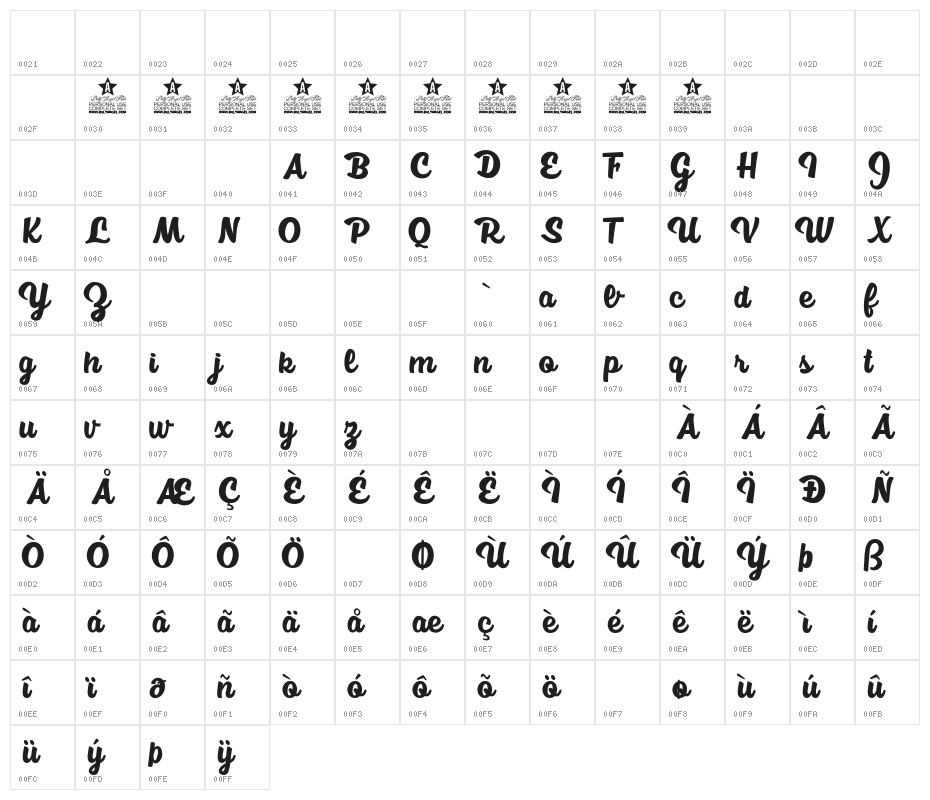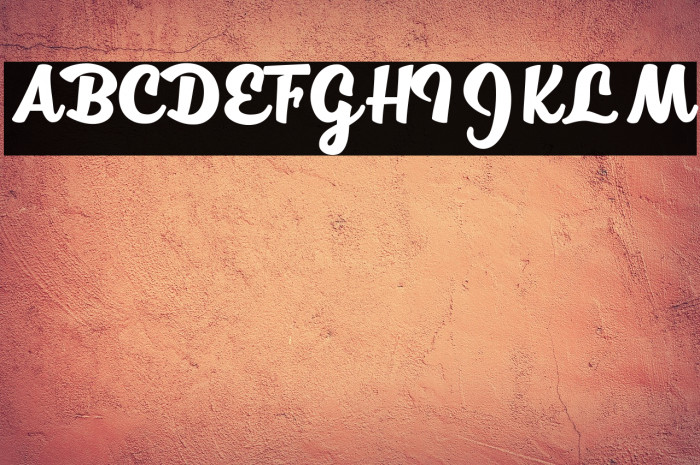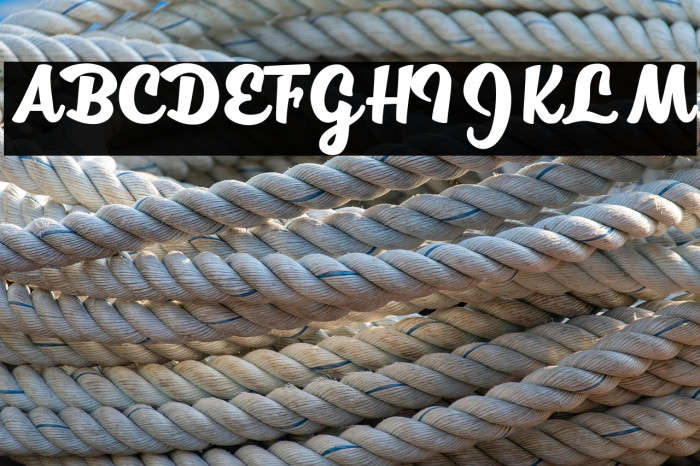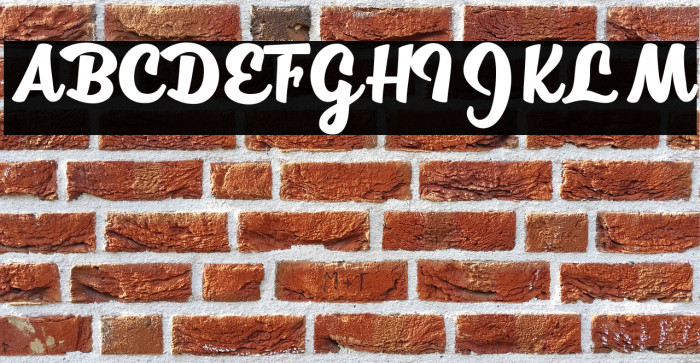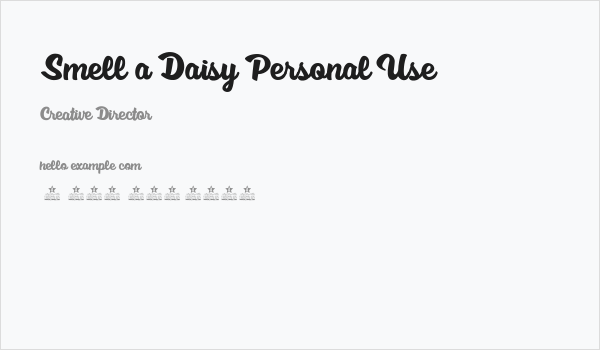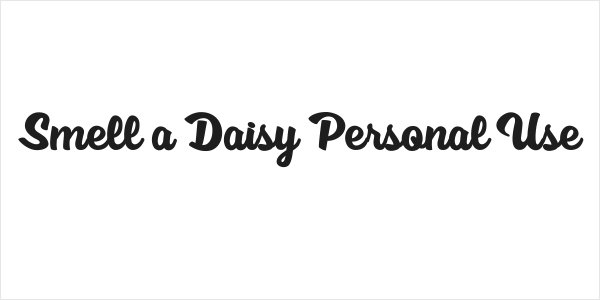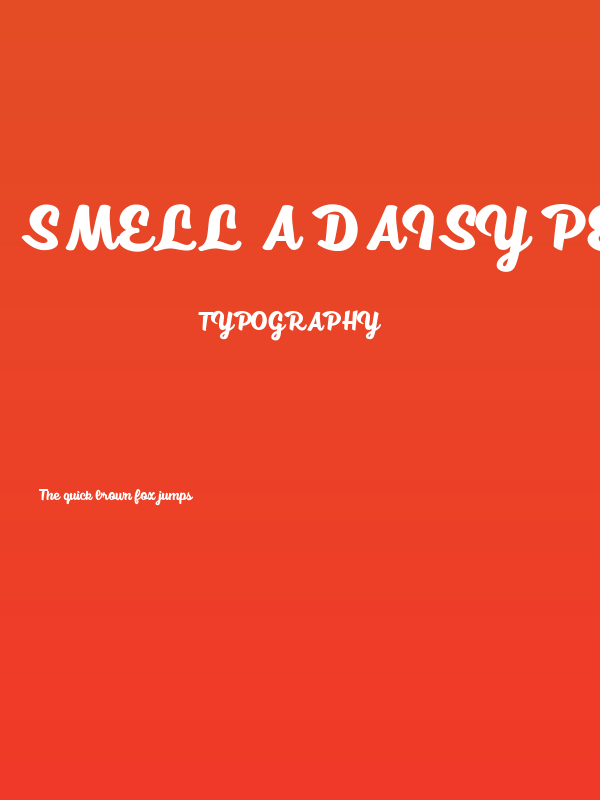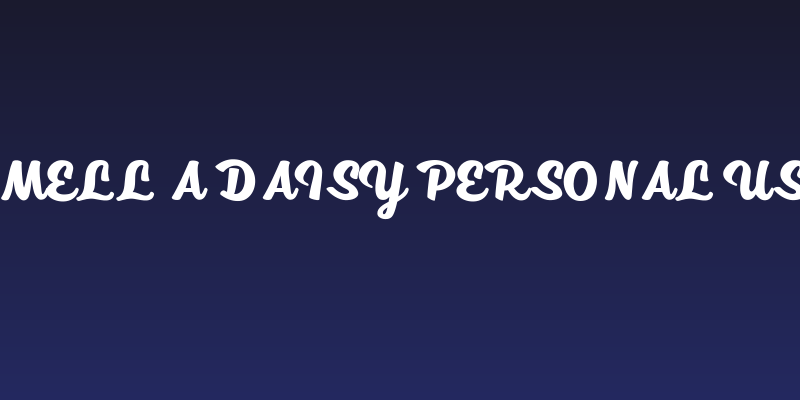
Smell a Daisy Personal Use Font
Smell a Daisy Personal Use Description
This font features a bold and playful script style, characterized by its smooth, flowing curves and thick strokes. The uppercase letters are slightly slanted, giving a dynamic and energetic feel, while the lowercase letters maintain a consistent rhythm with rounded forms. The font exudes a sense of fun and creativity, making it ideal for projects that require a personal touch. Its boldness ensures readability, even at smaller sizes, while the connected letterforms add a cohesive and harmonious look. The font is versatile, suitable for a variety of design applications where a lively and engaging appearance is desired.